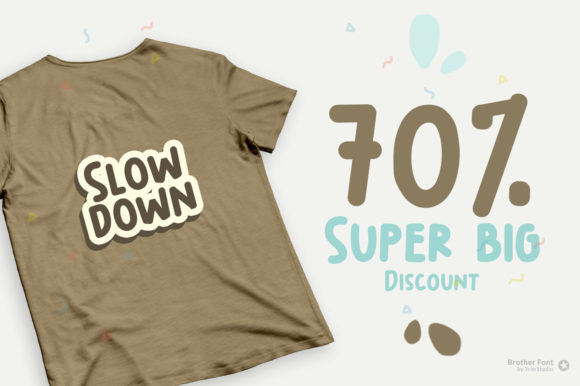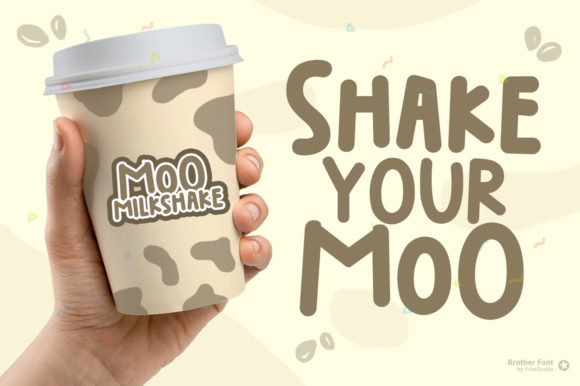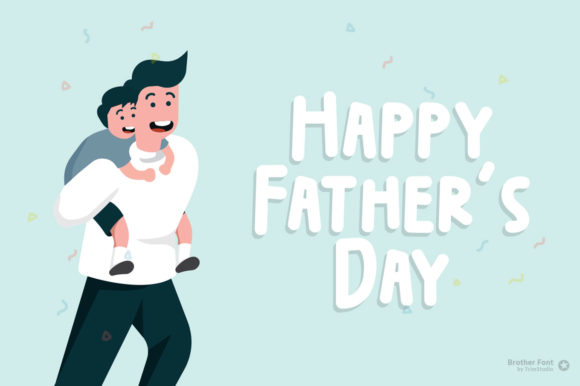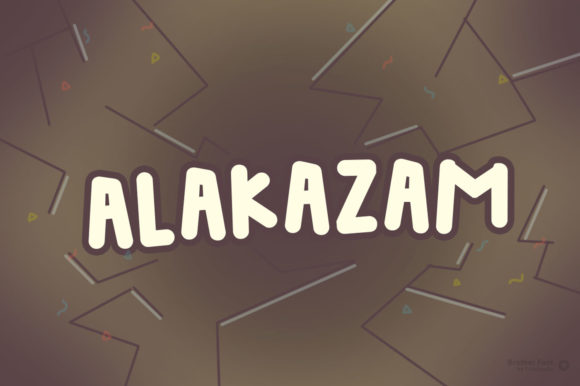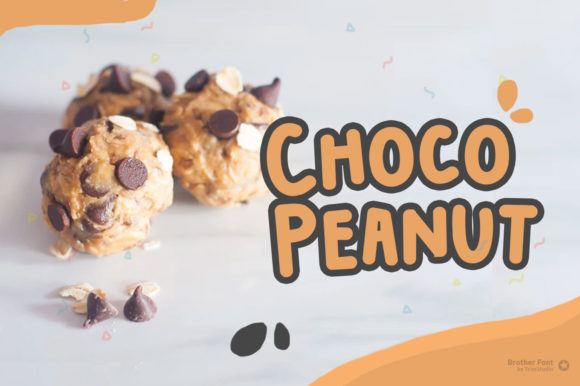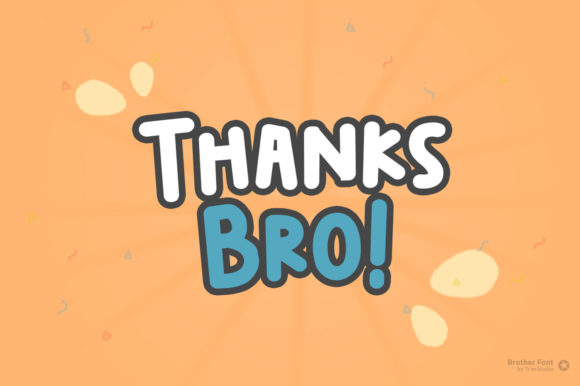
Introducing Brother Font: The Cheerful and Whimsical Typeface to Brighten Up Your Designs
Are you tired of using the same old fonts in your design projects? Look no further! Brother Font is here to add a splash of joy and whimsy to your creations. This delightful font is perfect for designers and crafters who want to infuse their work with a sense of happiness and playfulness. In this article, we’ll dive into the world of Brother Font and explore its features, benefits, and uses.
What is Brother Font?
Brother Font is a fun and cheerful typeface that’s full of joy. Its unique and quirky design makes it perfect for adding a touch of whimsy to any design project. Whether you’re working on a logo, brochure, or social media graphic, Brother Font is sure to bring a smile to your face and your audience’s face.
Key Features of Brother Font
- Unique and Quirky Design: Brother Font has a one-of-a-kind design that’s sure to stand out from the crowd.
- Cheerful and Playful: This font is perfect for designs that require a sense of fun and playfulness.
- Whimsical: Brother Font adds a touch of magic to any design project.
- Easy to Read: Despite its quirky design, Brother Font is easy to read and understand.
Benefits of Using Brother Font
So, why should you use Brother Font in your design projects? Here are just a few benefits:
- Adds Personality to Your Designs: Brother Font helps you create designs that reflect your personality and brand.
- Grabs Attention: The unique design of Brother Font is sure to grab attention and make your designs stand out.
- Perfect for Kids and Adults Alike: This font is suitable for designs targeting both kids and adults, making it a versatile addition to your font collection.
- Easy to Pair with Other Fonts: Brother Font pairs well with other fonts, making it easy to create stunning font combinations.
Uses of Brother Font
Brother Font is a versatile typeface that can be used in a variety of design projects, including:
- Logos and Branding: Use Brother Font to create a fun and memorable logo for your brand.
- Social Media Graphics: Add a touch of whimsy to your social media graphics with Brother Font.
- Brochures and Flyers: Use Brother Font to create eye-catching brochures and flyers that grab attention.
- Crafting and DIY Projects: Brother Font is perfect for crafting and DIY projects, such as making signs, cards, and other handmade items.
Tips for Using Brother Font
Here are some tips for getting the most out of Brother Font:
- Use it Sparingly: Use Brother Font sparingly to add emphasis and create visual interest.
- Pair it with Other Fonts: Experiment with pairing Brother Font with other fonts to create unique and interesting combinations.
- Adjust the Size and Color: Adjust the size and color of Brother Font to create visual hierarchy and add emphasis.
Brother Font is a fun and cheerful typeface that’s perfect for designers and crafters who want to add a touch of whimsy to their designs. With its unique and quirky design, Brother Font is sure to bring a smile to your face and your audience’s face. Whether you’re working on a logo, brochure, or social media graphic, Brother Font is a great choice. So why not give it a try and see how it can brighten up your designs?